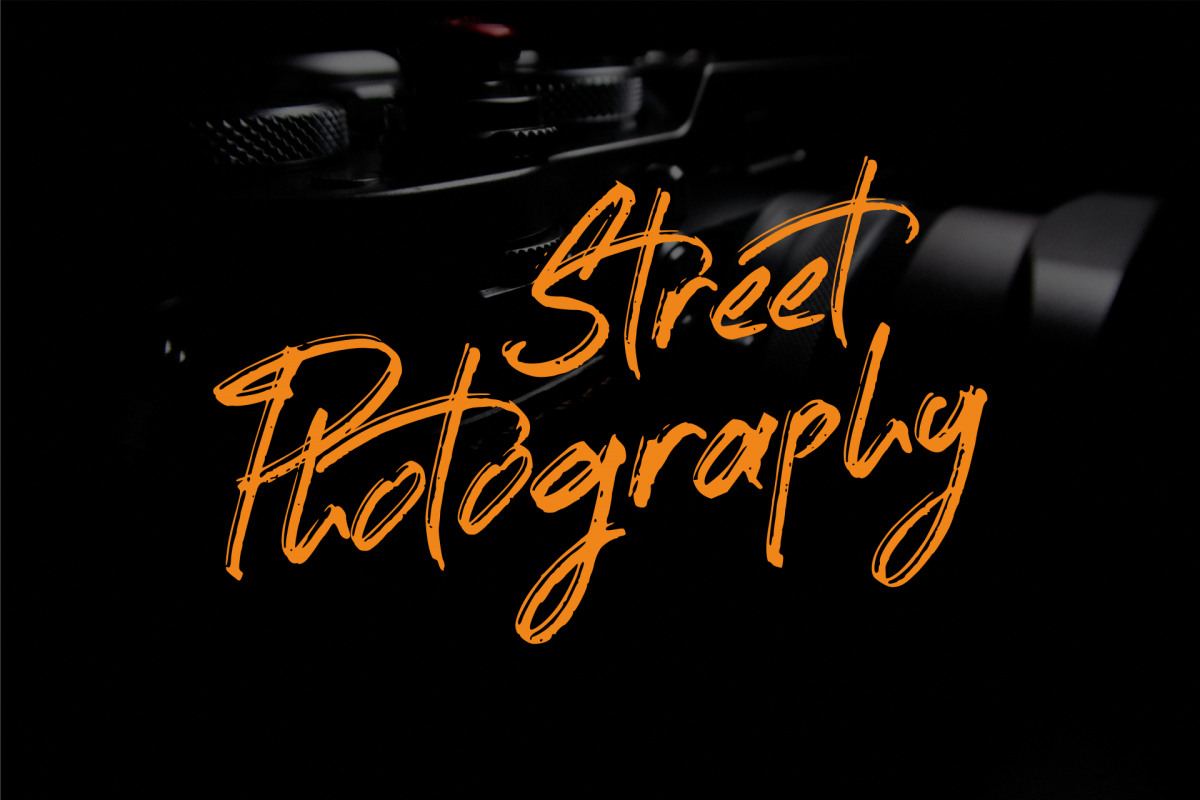
Street Photography
Street Photography is a natural hand brushed font. Work great for any design needs: logo, branding, modern advertising design, logos, poster quote, book/cover Title, editorial design, website/blog, card, custom mug, pillow, t-shirts, and any hand-lettered needs.